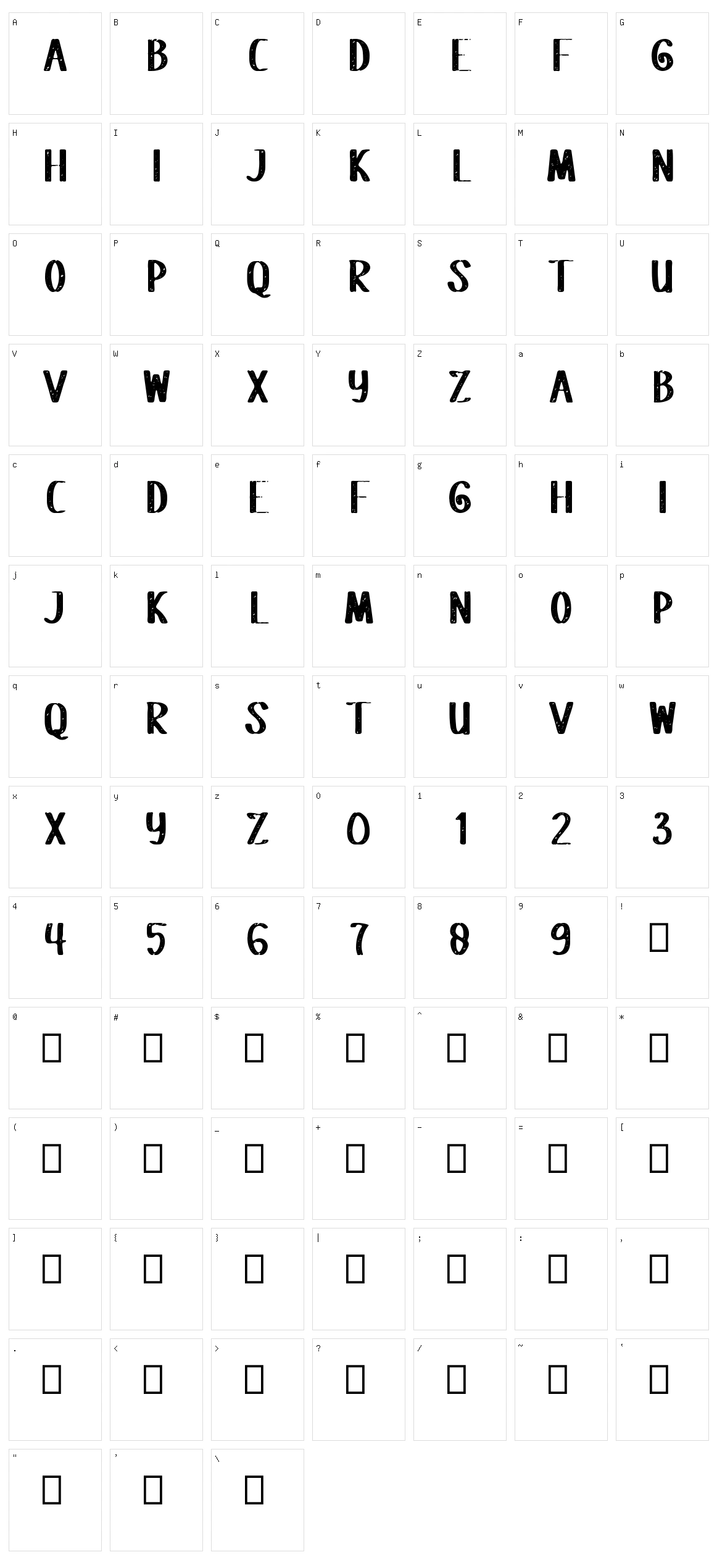
The free font Fatrouble is carefully designed by Zkhai Creative, showcasing a thoughtful balance of creativity and usability and falls under the Eroded font style. When you download the ZIP file, it contains only 64.06 KB of font files, making it lightweight and quick to download. Please review the license details below to understand permitted usage and distribution rights. If license information is not available, we recommend using this font for personal projects only or contacting the author directly for commercial usage permissions.